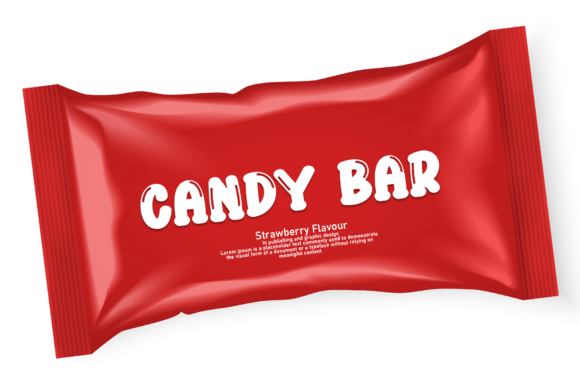
Bubble Christmas Font
Bubble Christmas is a fun and playful font that features rounded, bubbly letters. Perfect for festive occasions, it adds a cheerful touch to holiday greetings, cards, and decorations. Its soft shapes and friendly style make it easy to read and full of holiday spirit!